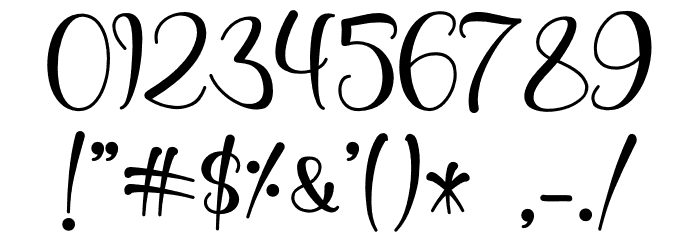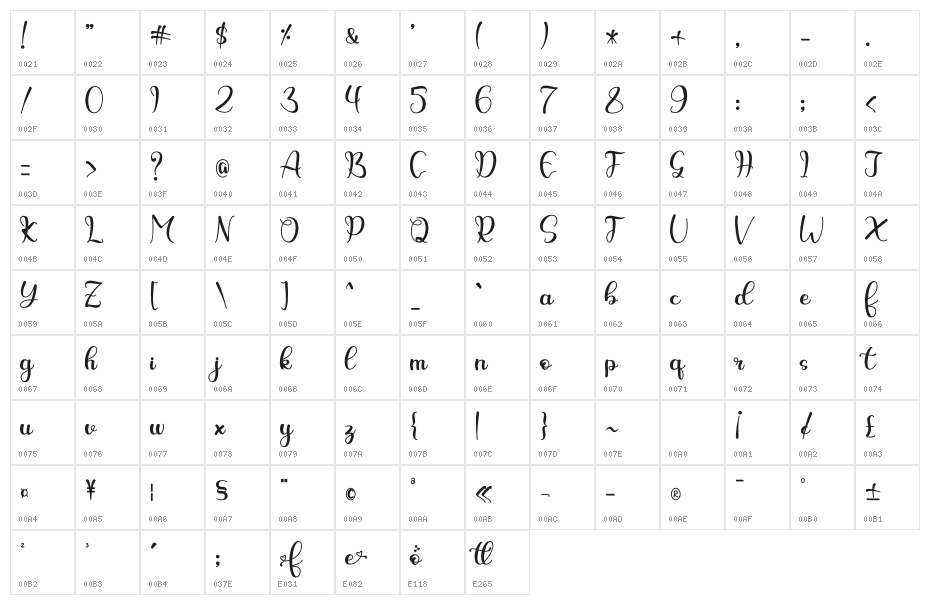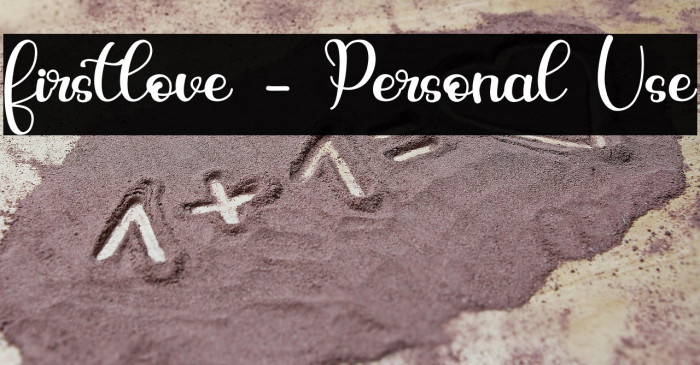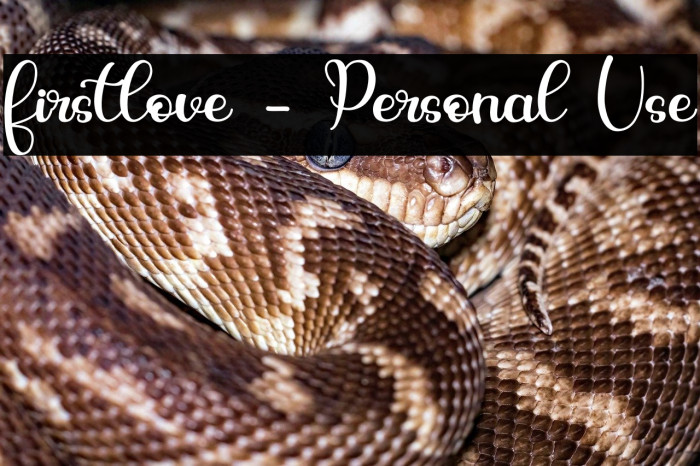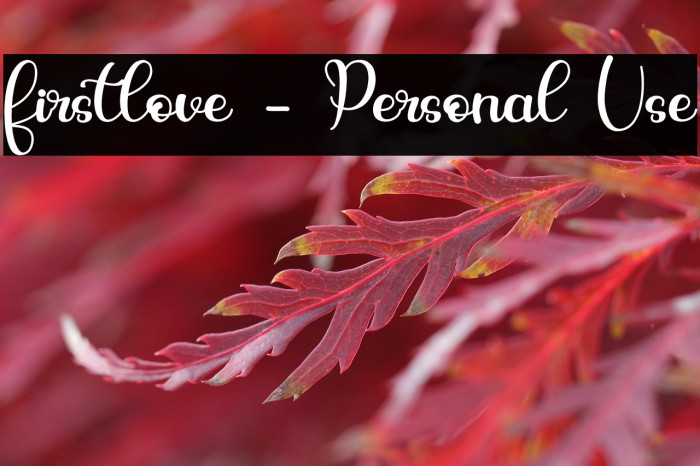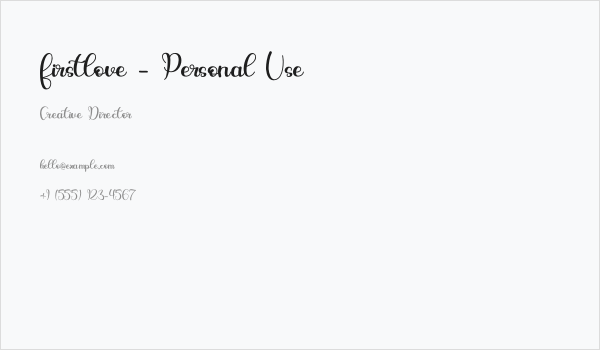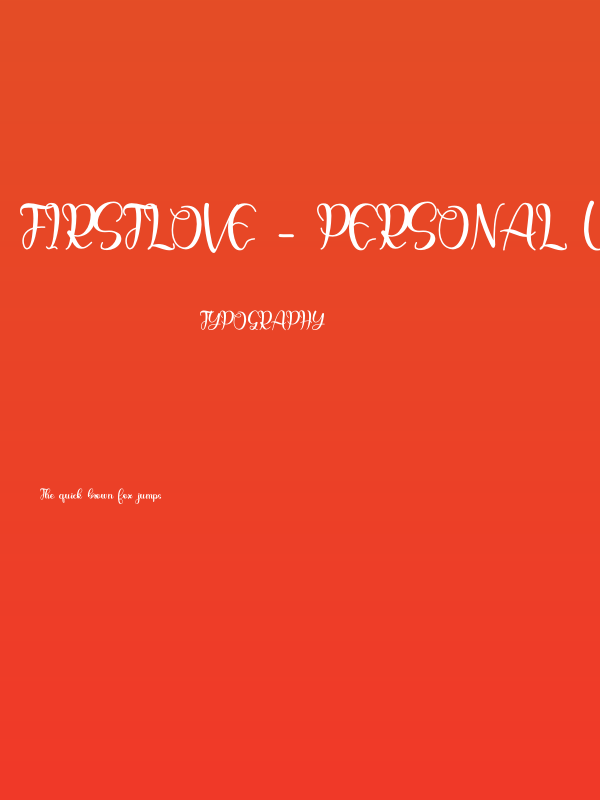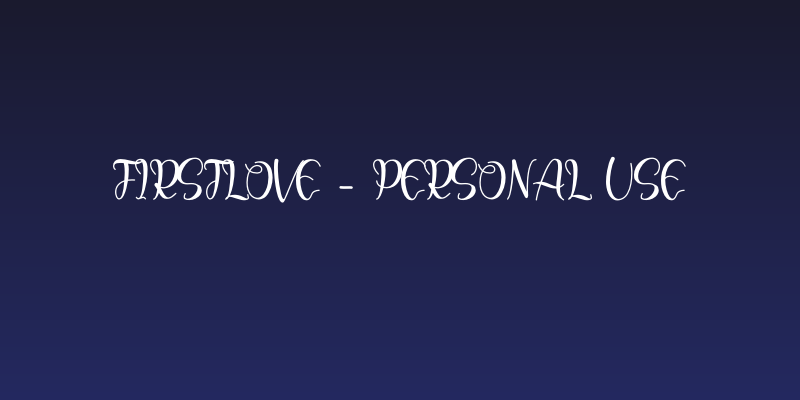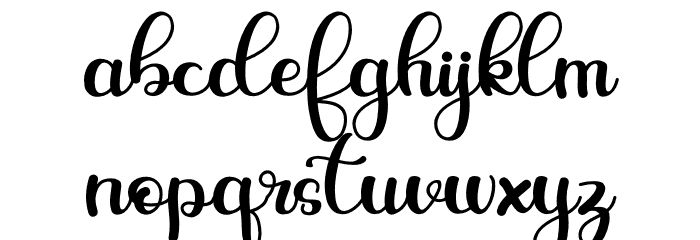
firstlove - Personal Use Font
firstlove - Personal Use Description
This font features a playful and elegant script style with a handwritten feel. The uppercase letters are characterized by sweeping curves and flourishes, giving them a whimsical and artistic appearance. The lowercase letters maintain a consistent flow, with some letters featuring loops and curls that add to the overall charm. The numerals are bold and slightly rounded, complementing the letterforms. Special characters are designed with the same attention to detail, ensuring they blend seamlessly with the rest of the font. The overall look is both sophisticated and approachable, making it suitable for a variety of creative projects.